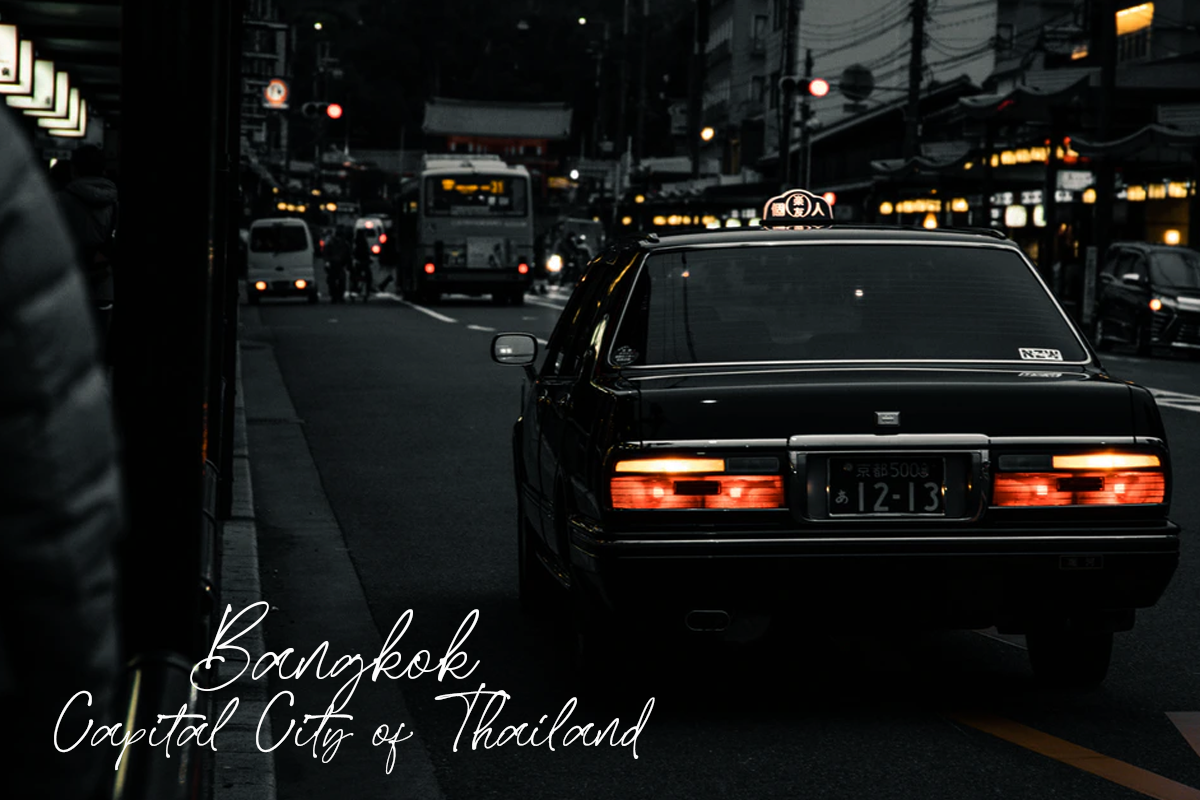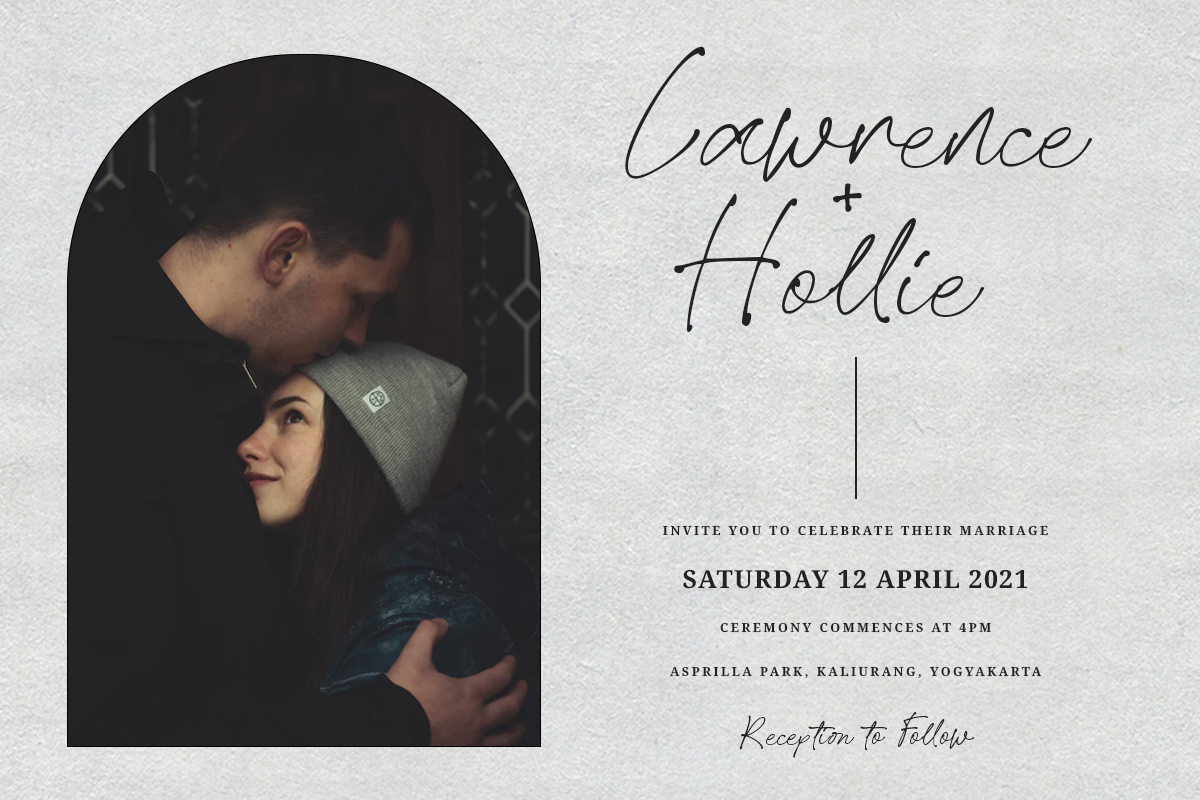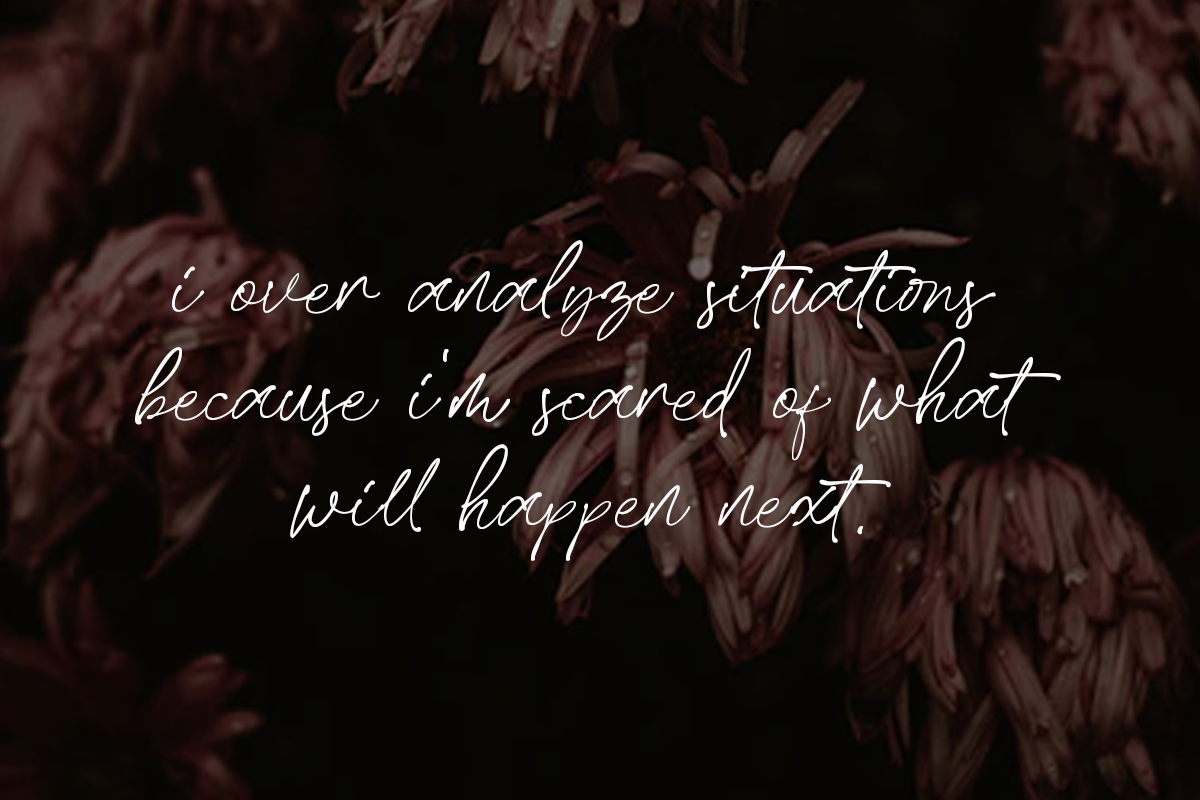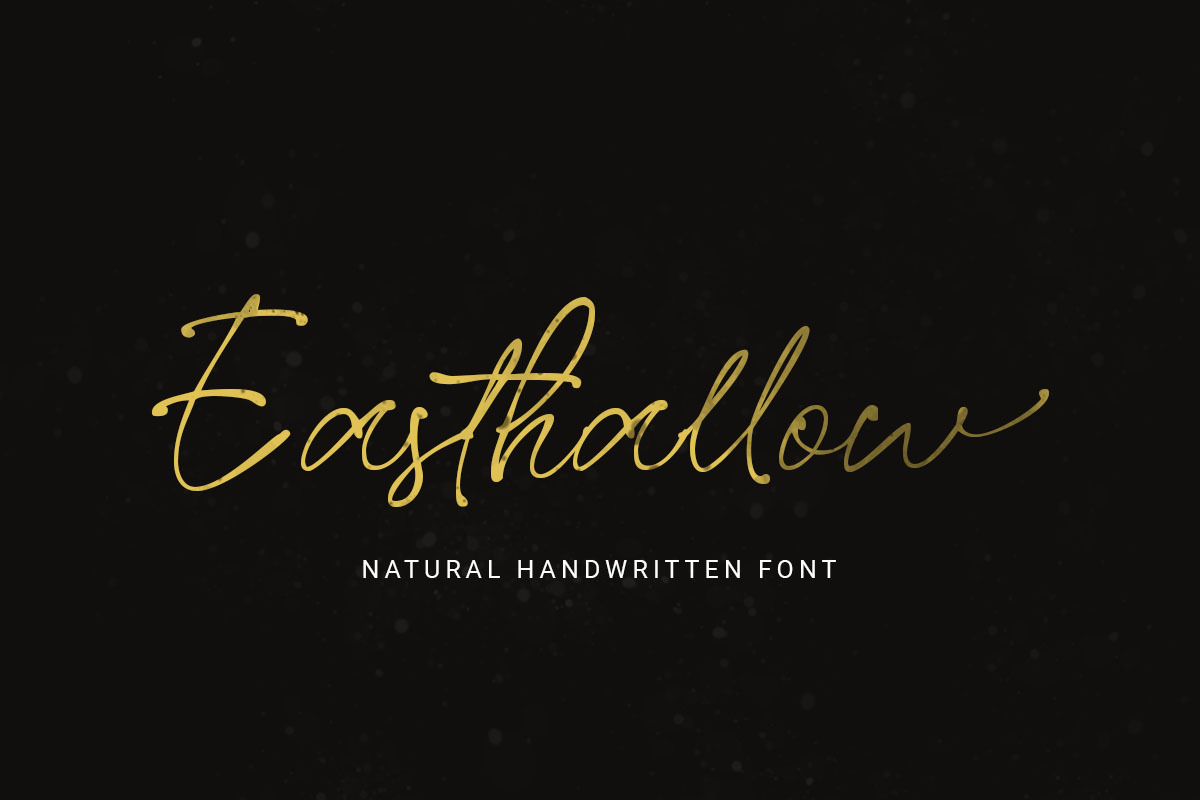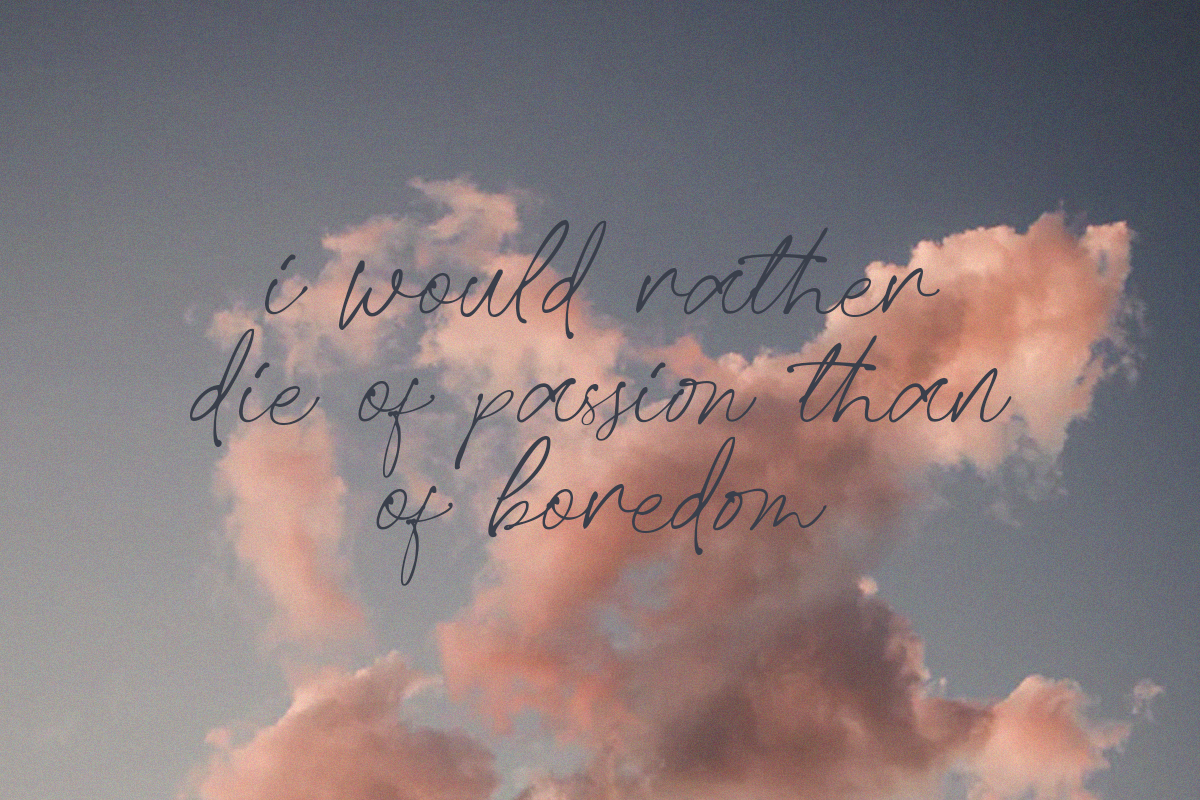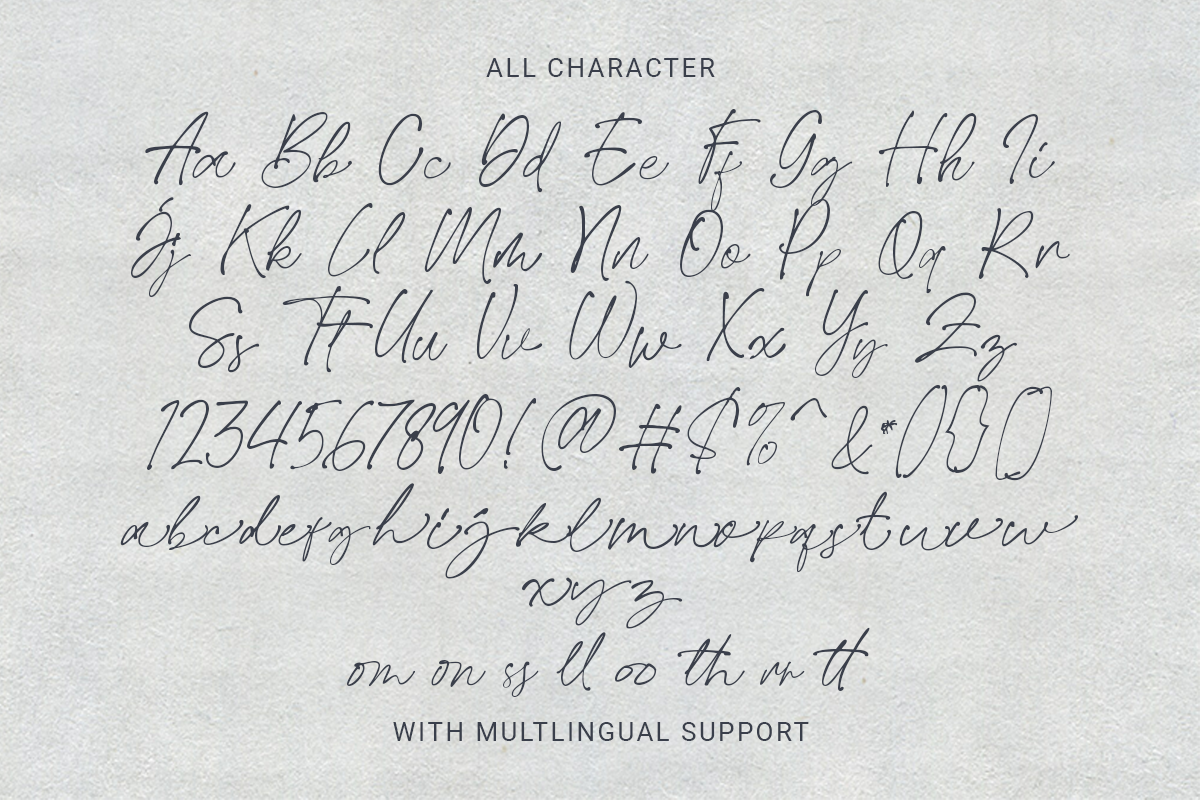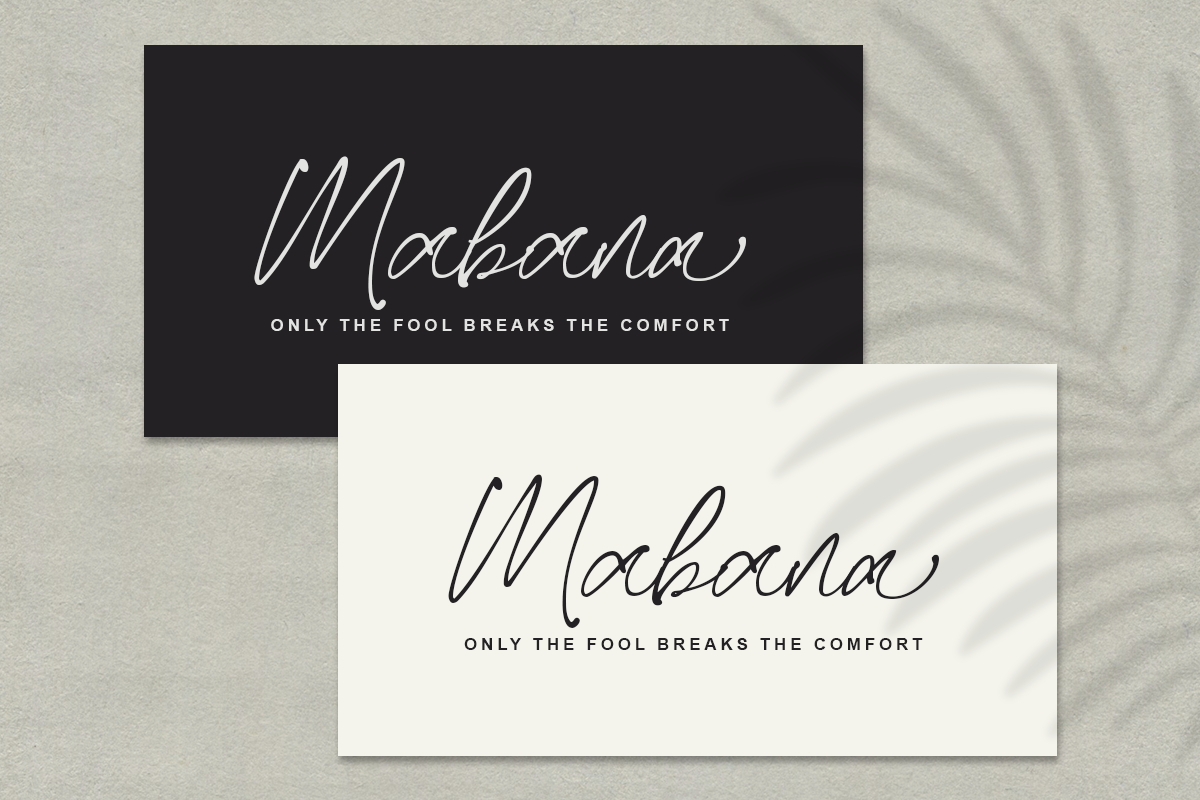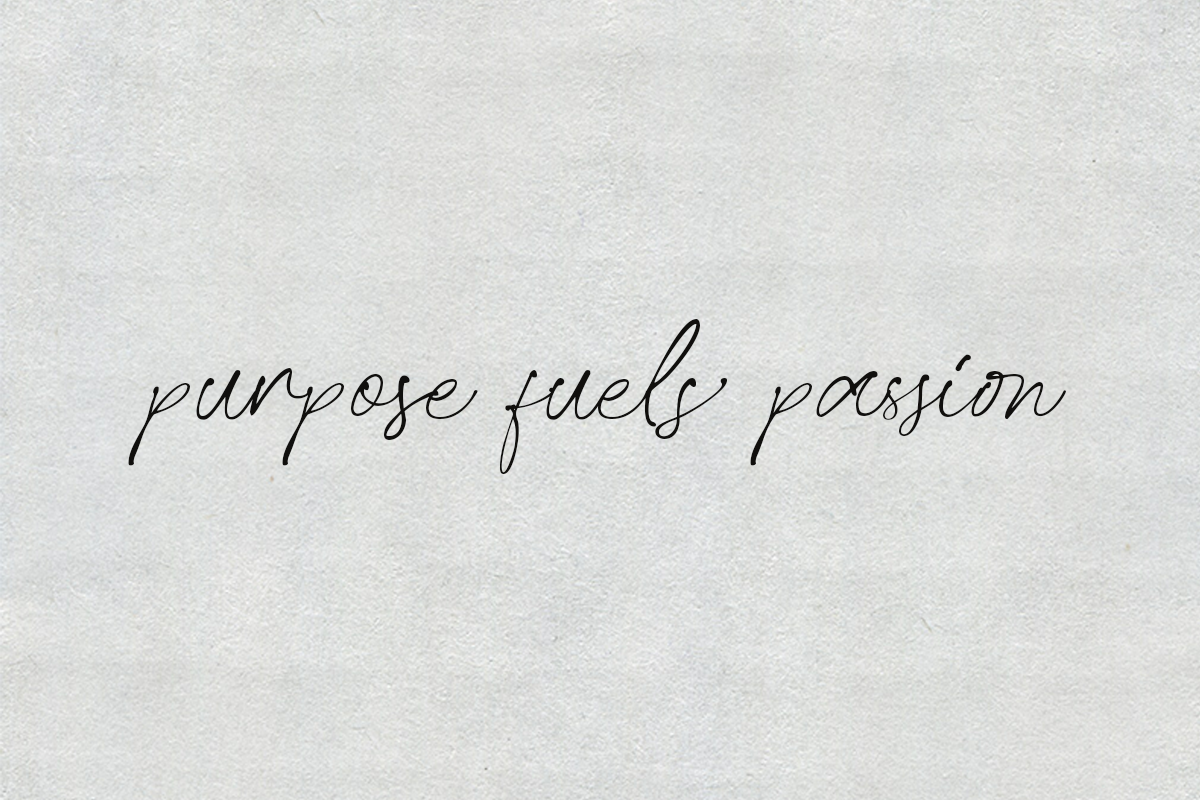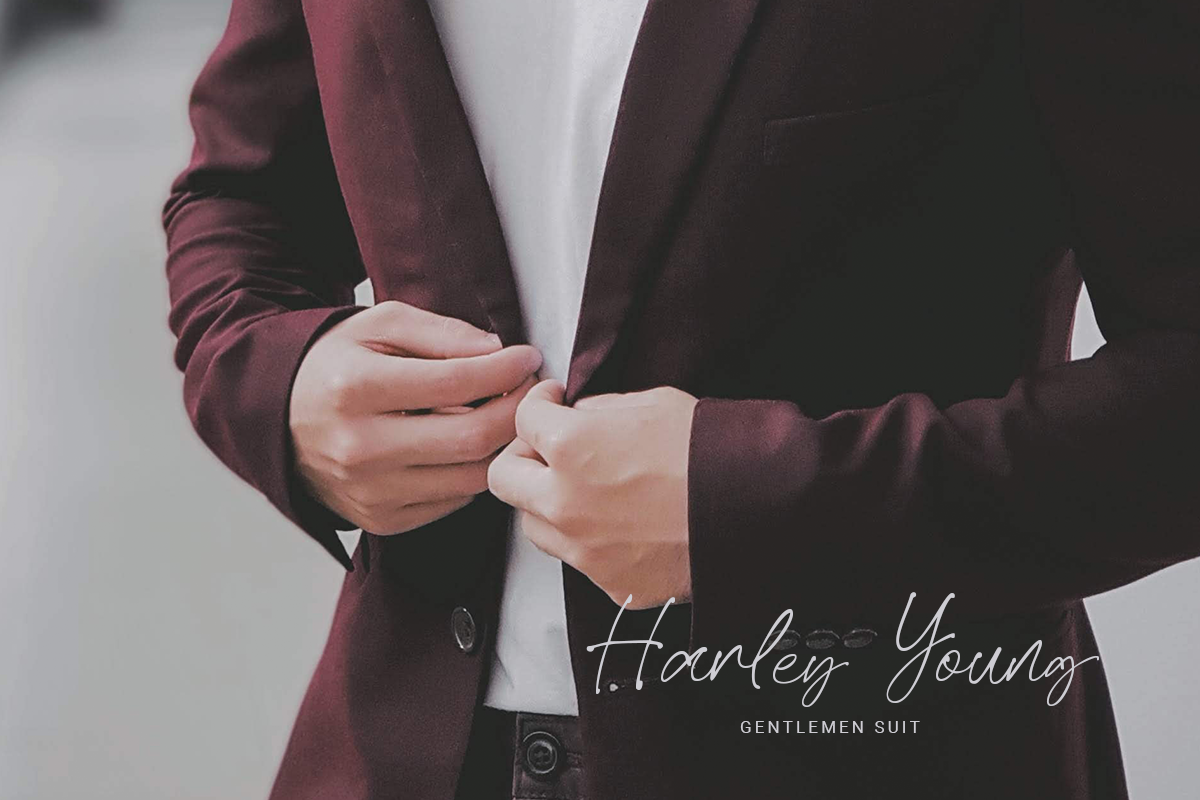
Easthallow Handwritten Font
Introducing, Easthallow Handwritten Font Font!
Easthallow is a natural Handwritten font that gives a natural and feminine touch to your design. This font is perfect for signature logos, wedding invitation, branding, etc.
- alternates